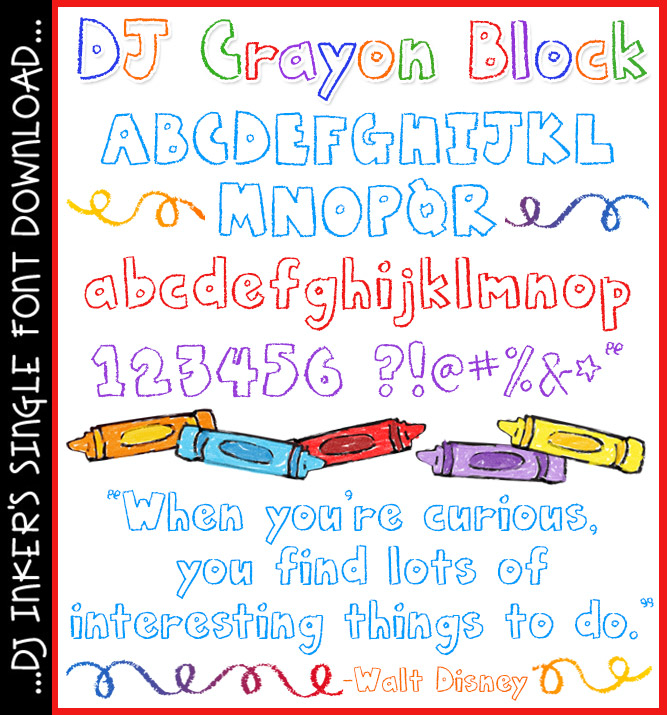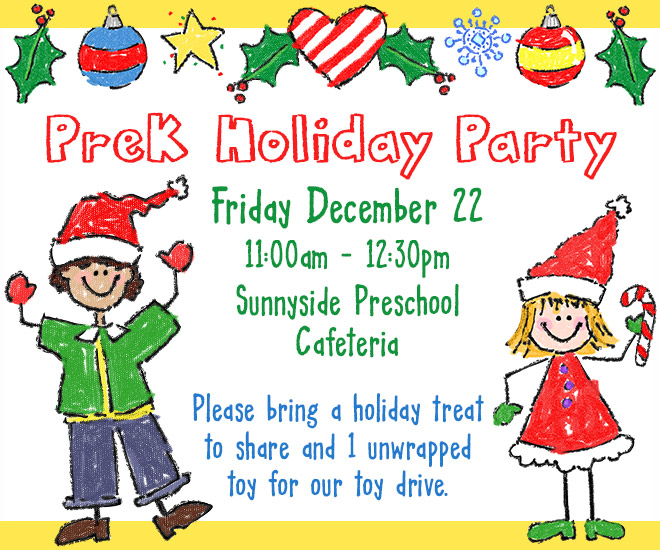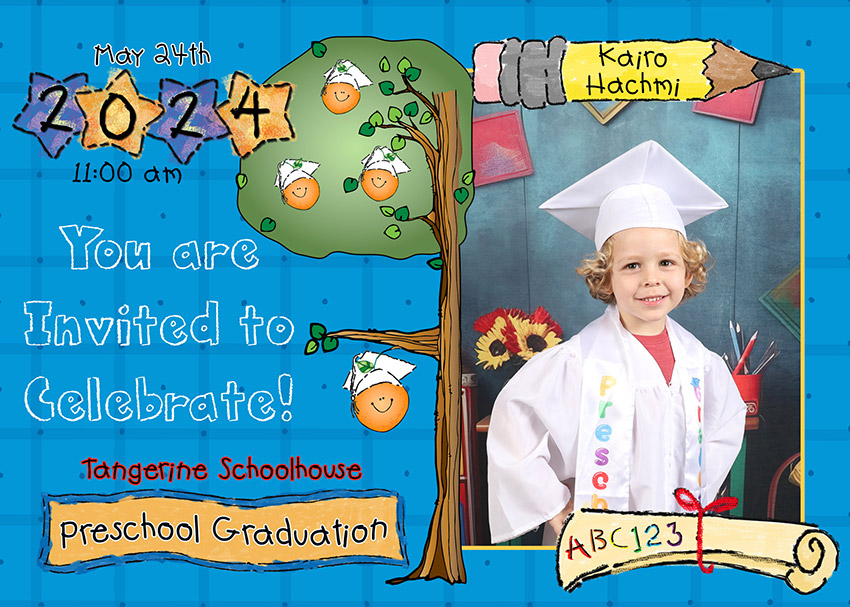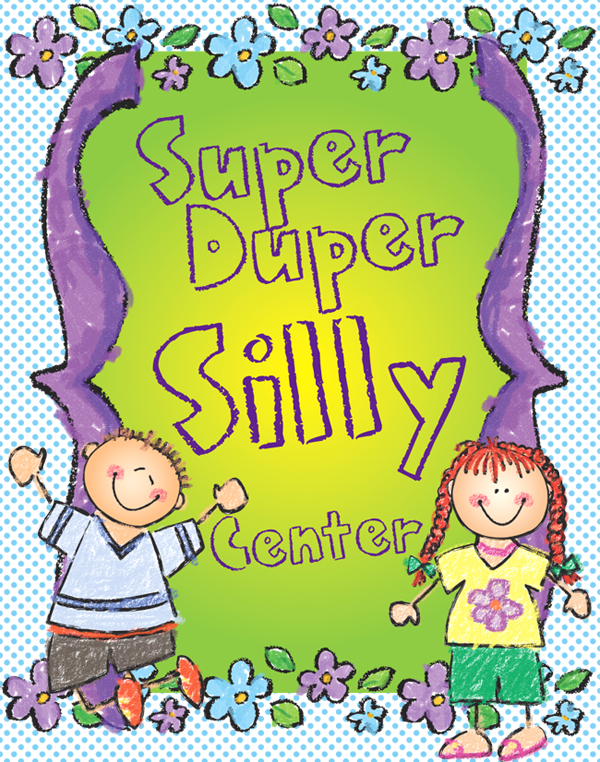
DJ Crayon Block Font Download
Color your text with a smile in our DJ Crayon Block font! This playful lettering will be fun for preschool, kindergarten and kids of all ages. Coordinates perfectly with our adorable 'crayon doodles' too. Type up a smile on notes to your kiddos, playroom décor, early education, memory books & more.